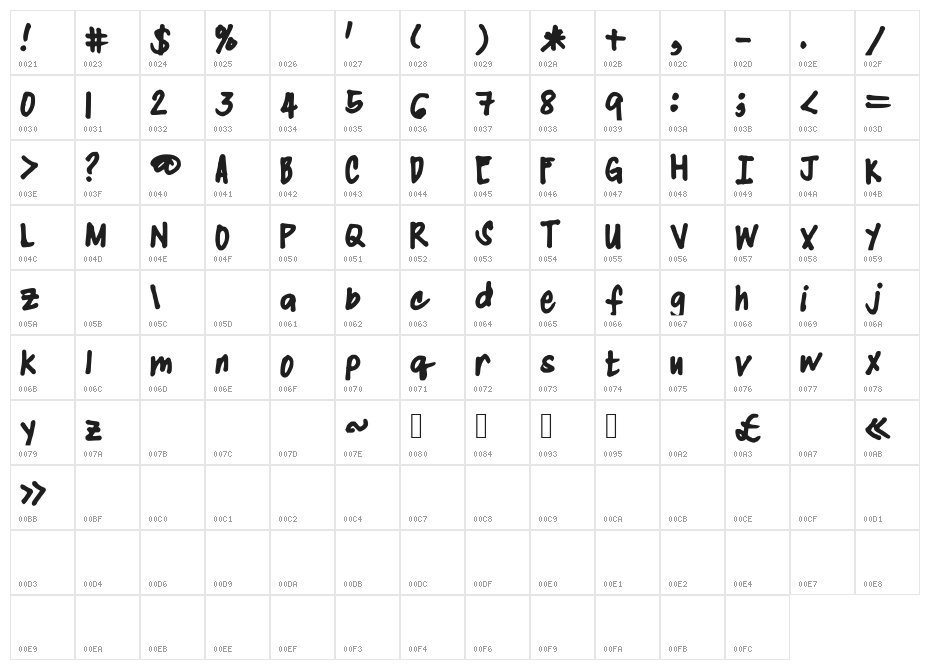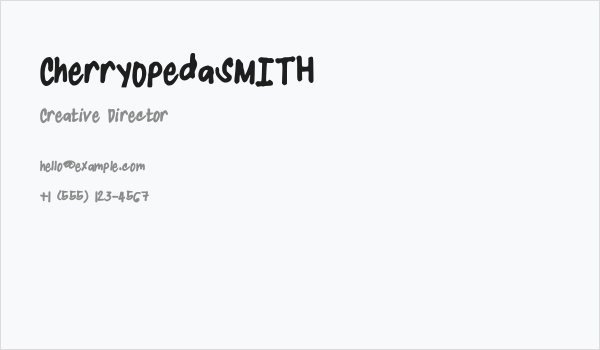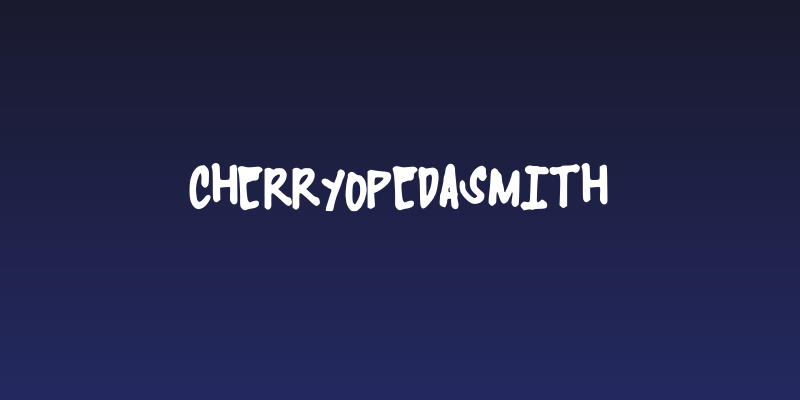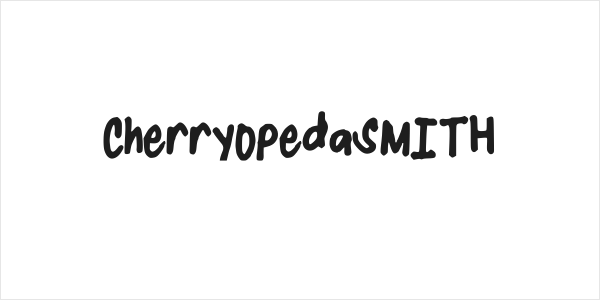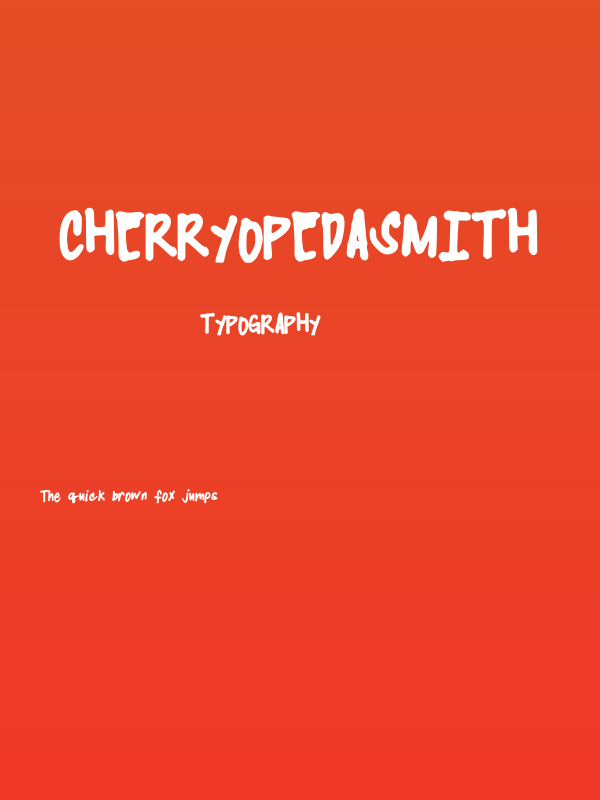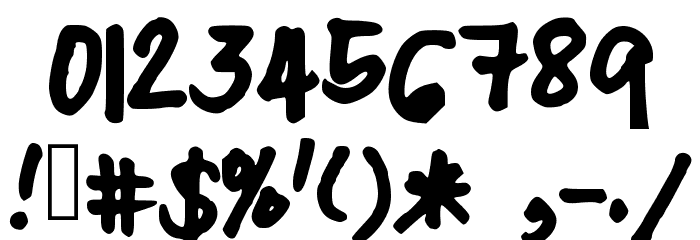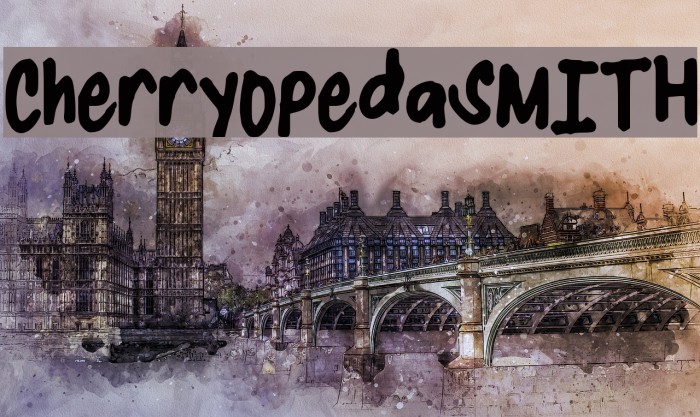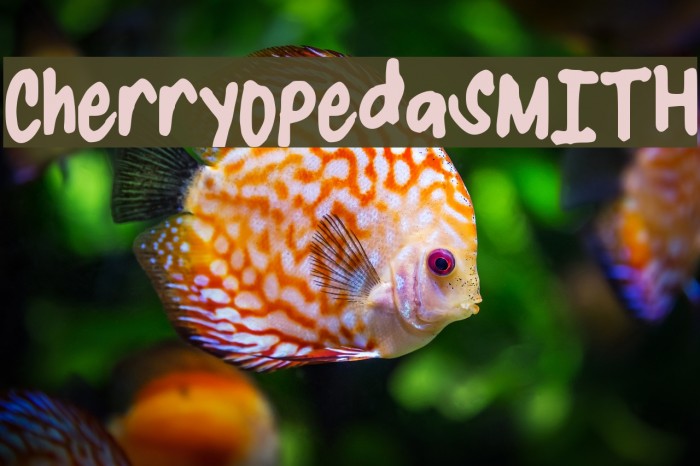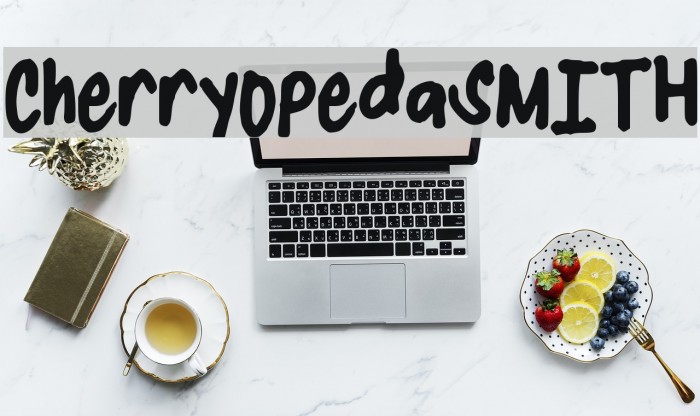
CherryOpedaSMITH Font
CherryOpedaSMITH Description
This font features a bold, playful style with a handwritten appearance. The letters are rounded and slightly irregular, giving them a casual and friendly look. The uppercase and lowercase characters maintain a consistent style, with a noticeable thickness that adds to the font's boldness. The numbers and special characters follow the same design, ensuring a cohesive appearance throughout. This font's unique style makes it stand out, ideal for projects that require a personal touch or an informal vibe.
| Overall Style | Playful, Casual |
| Proposed Projects | Ideal for greeting cards, children's books, playful branding, and informal invitations. |